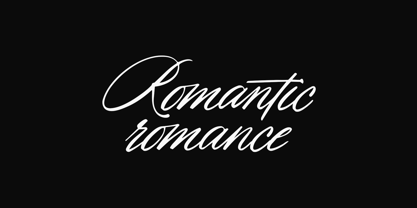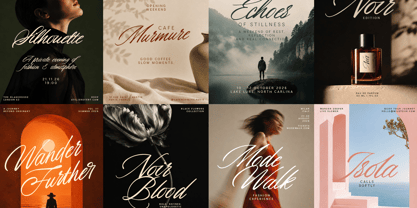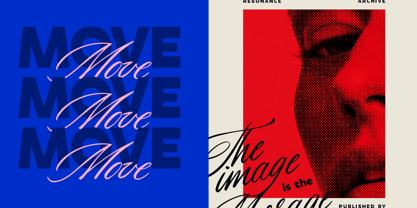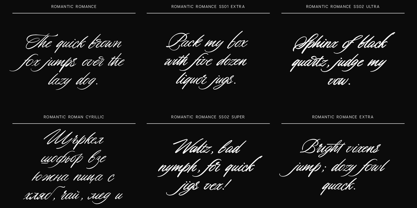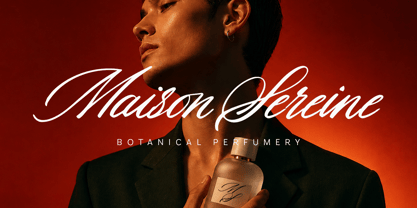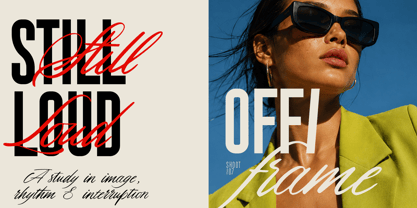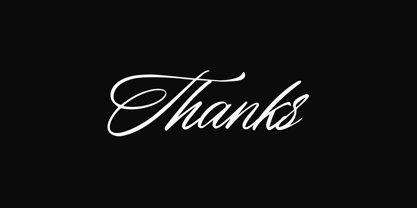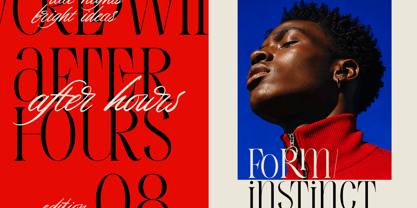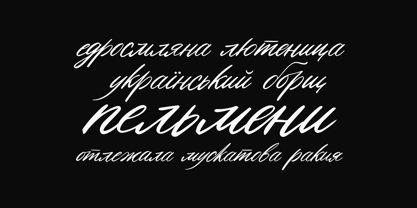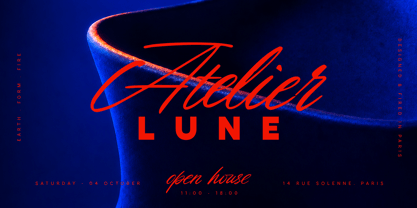
Romantic Romance
by VP Creative Shop
The Romantic Romance Font Family was designed by Vladimir Fedotov, Plamen Petrov and published by VP Creative Shop. Romantic Romance contains 15 styles and family package options. More about this family
Romantic Romance is an extensive calligraphic family combining graceful connected forms with an unusually broad range of weights and variation.
The family contains five weights: Regular, Plus, Extra, Super and Ultra. This progression allows the design to move from fine, restrained lettering to substantially heavier and more expressive typography while maintaining a consistent calligraphic structure.
More than 500 hand-drawn ligatures create individual solutions for recurring letter combinations, helping connected text maintain an organic rhythm rather than relying on a small number of repeated forms.
Three stylistic sets extend the character vocabulary further, offering alternative interpretations that can subtly reshape the personality of words, names and headlines.
Romantic Romance supports Extended Latin and Cyrillic, with its rich character system making the family particularly useful for multilingual identity and publishing projects.
Its wide stylistic range makes it suitable for both intimate and large-scale typography, including identity design, fashion, beauty, packaging, editorial work, publications and display compositions.
Romantic Romance combines the expressive movement of calligraphy with the flexibility expected from a contemporary professional font family.
Designers: Vladimir Fedotov, Plamen Petrov
Foundry: VP Creative Shop